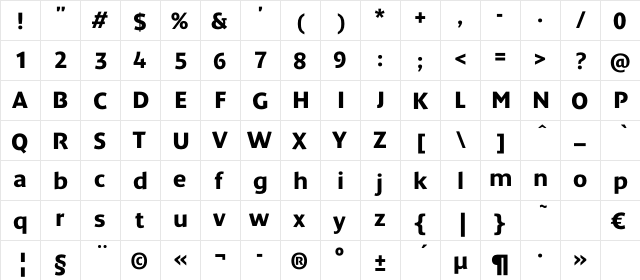
DendaNewC Bold
Design Context for DendaNewC Typeface
DendaNewC is a composed and adaptable typeface that performs quietly and consistently across a wide range of design contexts. Its bold stroke weight gives it real presence on the page.